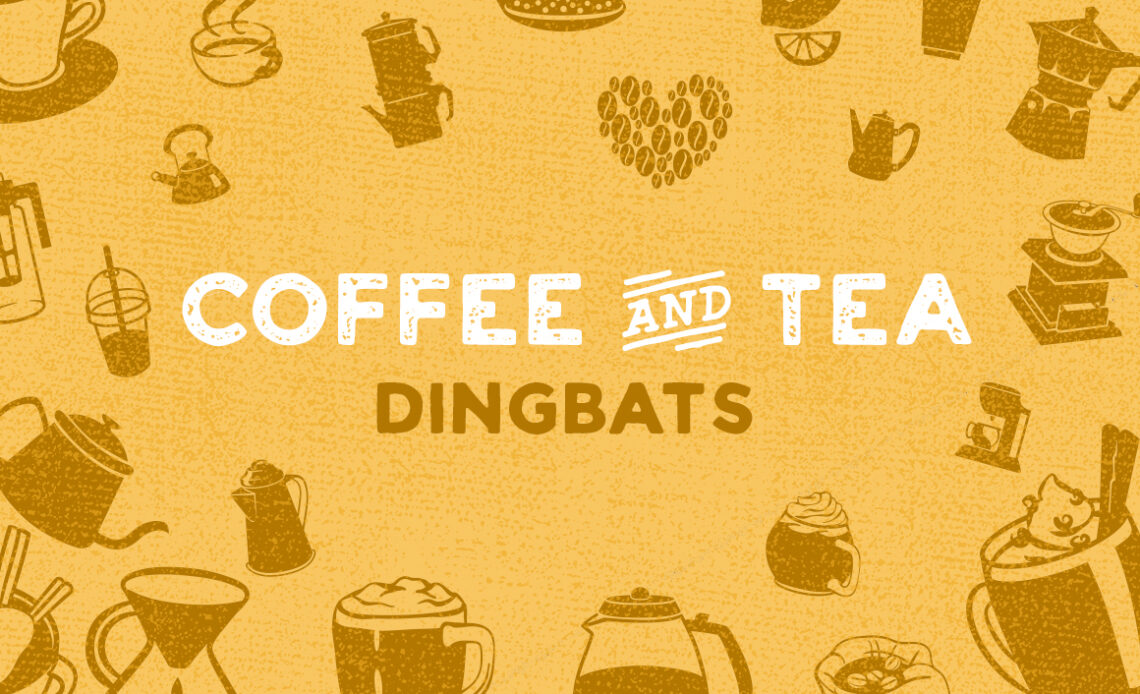
Welcome to the world of coffee and tea, where aroma and flavor dance in perfect harmony. Our Coffee & Tea Dingbat Font Family is an exquisite collection of 30 unique dingbats, each delicately crafted to capture the essence of these beloved beverages. Immerse yourself in the rich tapestry of taste and tradition, letting your creativity flourish with every delightful design.
With the Coffee & Tea Dingbat Font, you'll embark on a sensory journey, savoring the nuances of each sip. The carefully curated dingbats evoke the warmth of freshly brewed coffee, the invigorating kick of a robust tea blend, and the soothing comfort of a steaming mug on a chilly afternoon.
Picture yourself sipping a cup of steaming coffee, the aroma swirling around you like a comforting embrace. Our dingbats will transport you to cozy coffee shops, bustling cafes, and sun-drenched patios, where the air is filled with laughter and conversation. Let your designs radiate the same warmth and charm, inviting your audience to indulge in the simple pleasures of a perfect cup.
Now, imagine the delicate flavors of tea unfurling on your palate. Whether it's the subtle sweetness of green tea, the robust earthiness of black tea, or the vibrant zest of herbal infusions, our dingbats will capture the essence of each unique blend. As you incorporate them into your designs, you'll evoke a sense of tranquility, mindfulness, and rejuvenation.
But our Coffee & Tea Dingbat Font is more than just a collection of symbols. It's a gateway to endless creative possibilities. Elevate your social media posts with eye-catching designs, add a touch of whimsy to your invitations and cards, or create unique logos and branding that reflect your passion for coffee and tea.